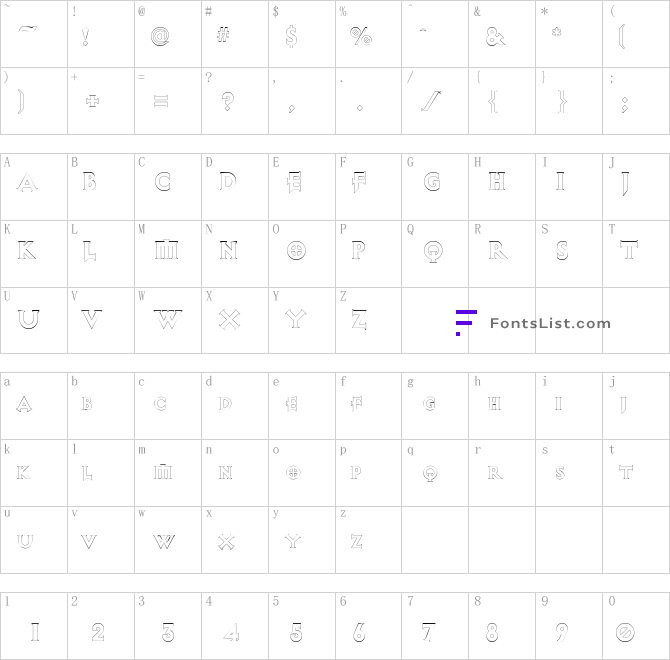
- Font Name:AvalonQuestOutline
AvalonQuestOutline-Black.ttf is a very beautiful artistic font, AvalonQuestOutline-Black.ttf is widely used in the design and printing of various books and pictures,AvalonQuestOutline-Black.ttf has a strong visual impact,AvalonQuestOutline-Black.ttf is a commonly used font in newspapers, magazines and books, and is used in posters, e-commerce Poster design, store design, logo design, font design and other fields.AvalonQuestOutline-Black.